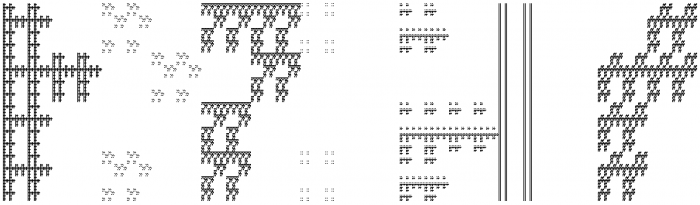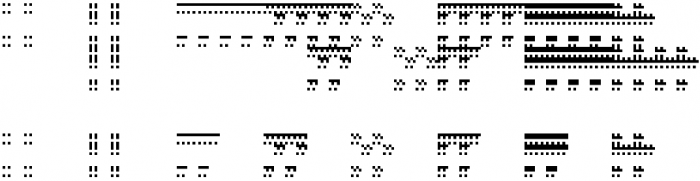
Just for fun I've built a sample of the 4th Iteration. It looks nice in preview, but the font generated by the Fontmortar is useless. It may have pushed the envelope too far.
I can only hope I am the first with this fractal type concept. There are some examples of letters-in-letter design, but not in fractal fashion.
I thought about the space glyph too. Actually, there should be a black & white pair a space glyphs. What pattern could it be without compromising the period and other punctuation marks I can't tell right now. I still have some problems how to accommodate B&W pairs of glyphs within the same font. I think, I should learn more about Open Type.
4th Iteration: A very good question. Back in August, when this idea came I've made a lot of calculations. It is easy to compute the size of a glyph in bricks:
1st Iteration: 2x4=8
2nd Iteration: 8x16=128
3rd Iteration: 32x64=2048
4th Iteration: 128x256=32768